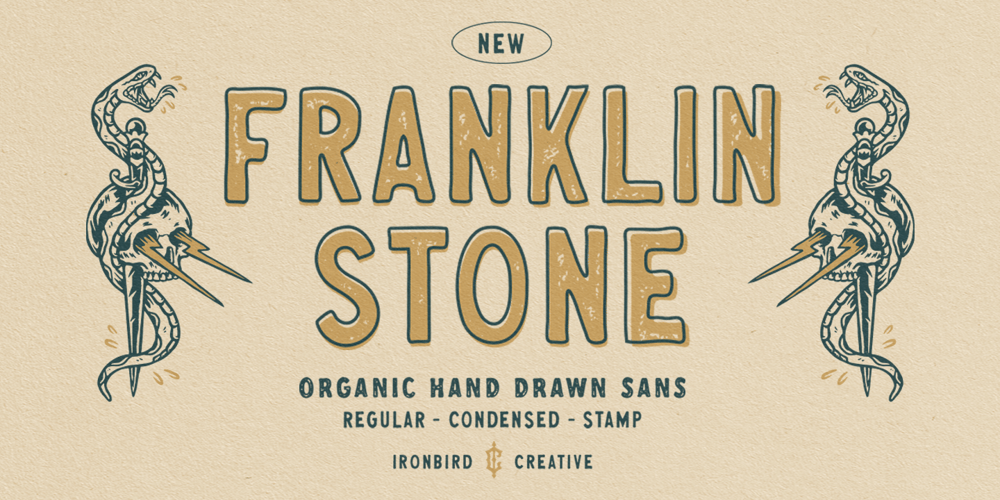
Franklin Stone
Franklin Stone font
Franklin Stone Font Family was designed by Septianto Nugroho and published by Ironbird Creative. Franklin Stone contains 4 styles and family package options. Franklin Stone is a organic hand drawn typeface inspired by vintage type with hand drawn feel. Comes with regular, condensed and stamp. This typefaces is perfect for people looking for vintage aesthetic. Suitable for any graphic designs such as branding materials, t-shirt, print, logo, poster, t-shirt, quotes .etcYou may not use the fonts in templates or for sale/free or on template websites. ( web/print/app )We hope you enjoy the font, please feel free to comment if you have any thoughts or feedback. Thanks for purchasing and have fun!Regards,Ironbird Creative